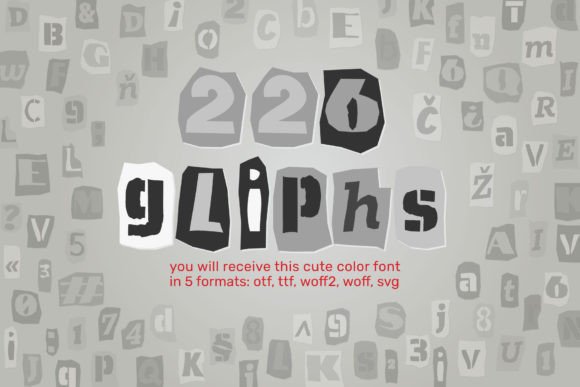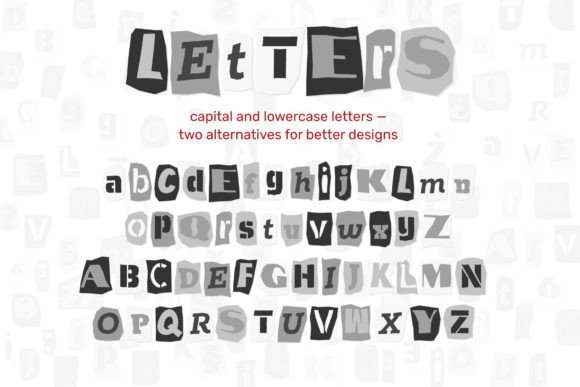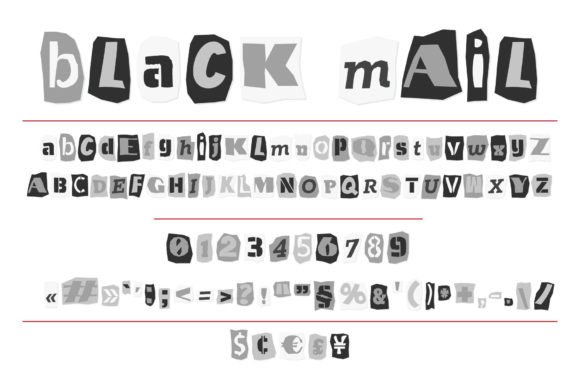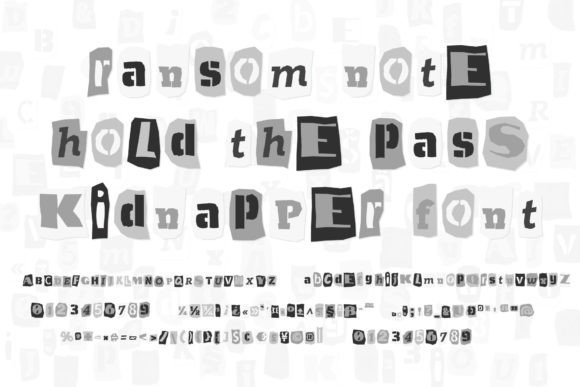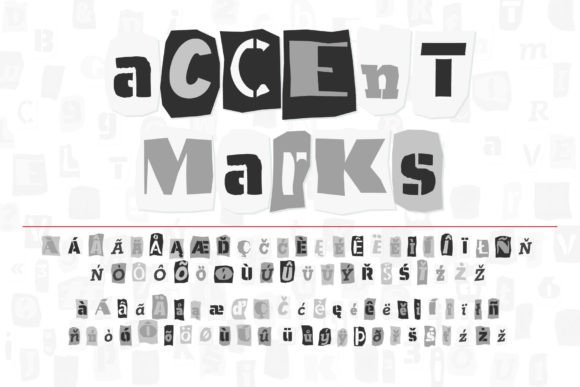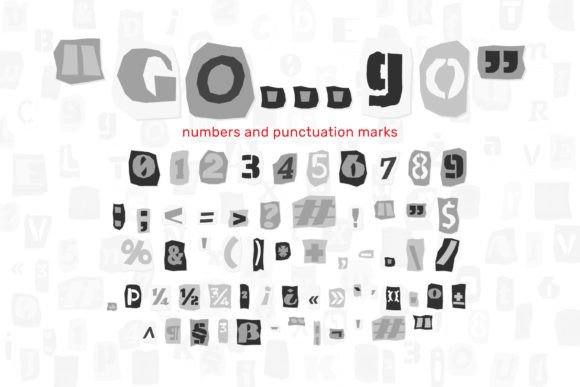
Discover the Cut News Gray Font: A Modern Grotesque Sans-Serif Marvel
I’ll never forget the time I was working on a project for a client who needed a bold, eye-catching font to make their brand stand out. I scoured the internet for hours, trying to find the perfect fit, but nothing seemed quite right. That was until I stumbled upon the Cut News Gray Font. This modern display grotesque sans-serif font has been a game-changer for my designs, and I’m excited to share its awesomeness with you! 😊
- ✅ Unique Style: The Cut News Gray Font boasts a fresh, cut-out magazine letter collage style that’s perfect for making a statement.
- ✅ Versatility: This font is incredibly versatile and can be used for a wide range of projects, from quotes on t-shirts to modern typography posters and children’s posters.
- Experiment with the font’s OpenType features, such as glyphs and stylistic alternates, to add some extra flair to your design.
The Designer’s Inspiration: A Backstory
The Cut News Gray Font was inspired by the world of magazine cutouts and collages. Imagine a designer rummaging through old magazines, cutting out letters and words to create a unique, eye-catching typography style. This font captures the essence of that creative process, bringing a fresh and modern twist to traditional grotesque sans-serifs.
| Font Name | Cut News Gray Font |
| Author | z.zajka |